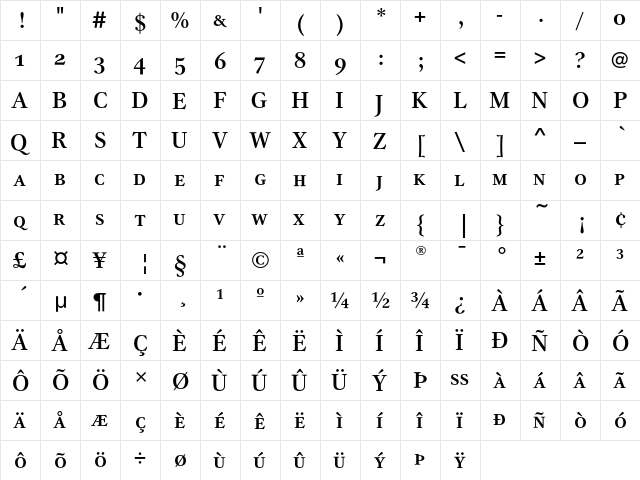
GammaSCEF Medium
Design Context for GammaSCEF Typeface
GammaSCEF offers clean, dependable letterforms without strong stylistic allegiance, making it a practical choice for designers who need flexibility.